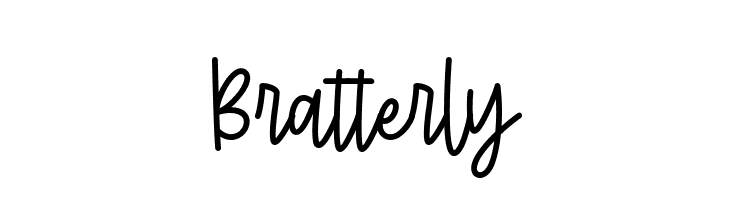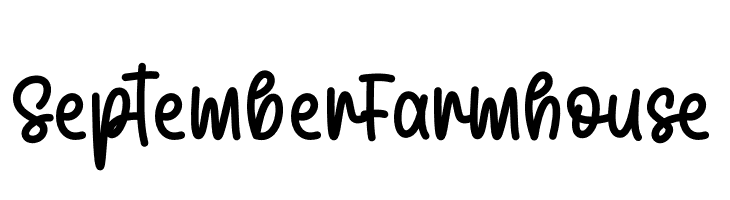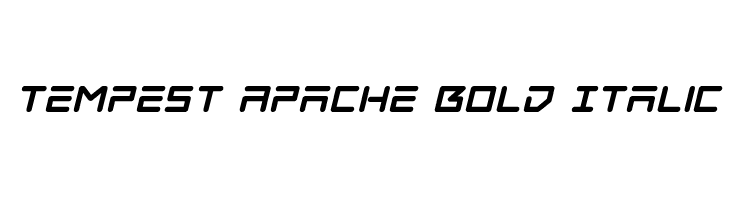
A playful, casual handwritten font with smooth, flowing lines.
A dynamic, high-contrast script font with elegant loops and swashes.
A dynamic, hand-brushed font with expressive, irregular strokes.
A playful, handwritten font with a casual and friendly appearance.
A bold, geometric font with sharp, angular edges and a modern style.
A lively and expressive handwritten font with fluid strokes and a personal touch.
A bold, angular italic font with a graffiti-inspired style.
A bold, geometric font with abstract shapes and sharp edges.
A bold, condensed typeface with a strong, geometric design.